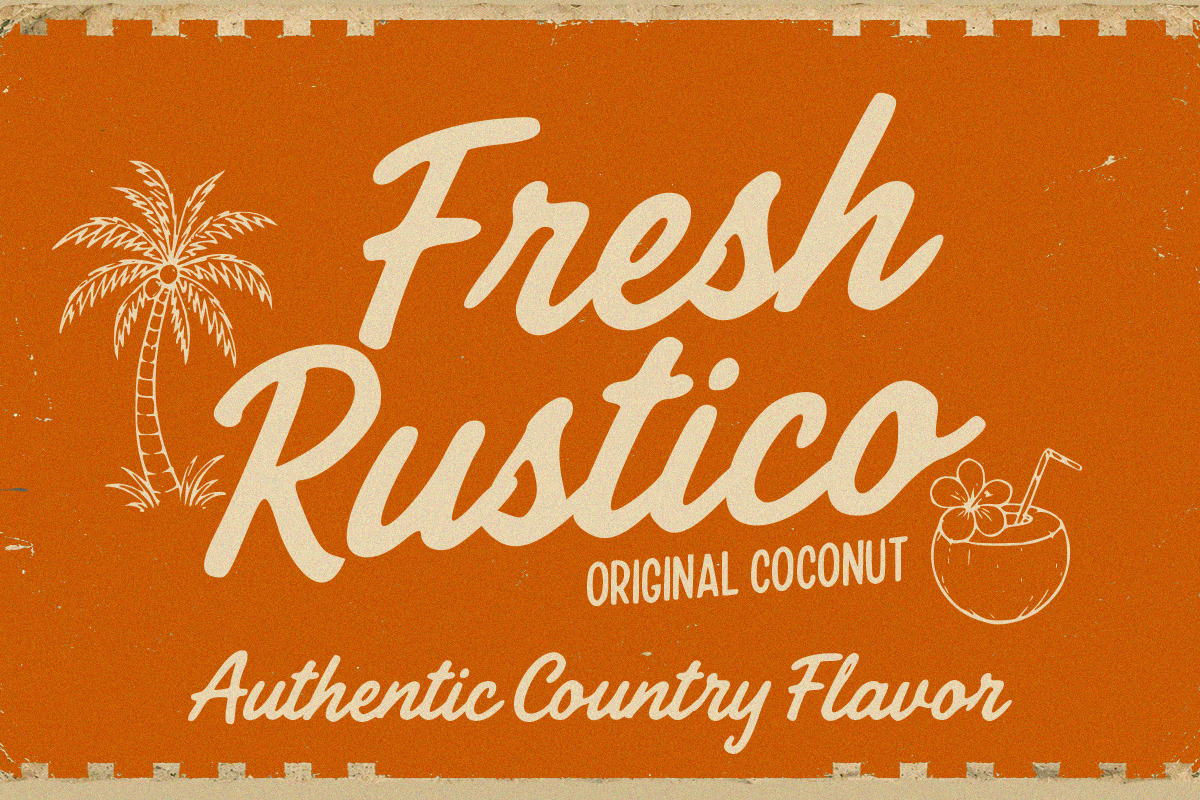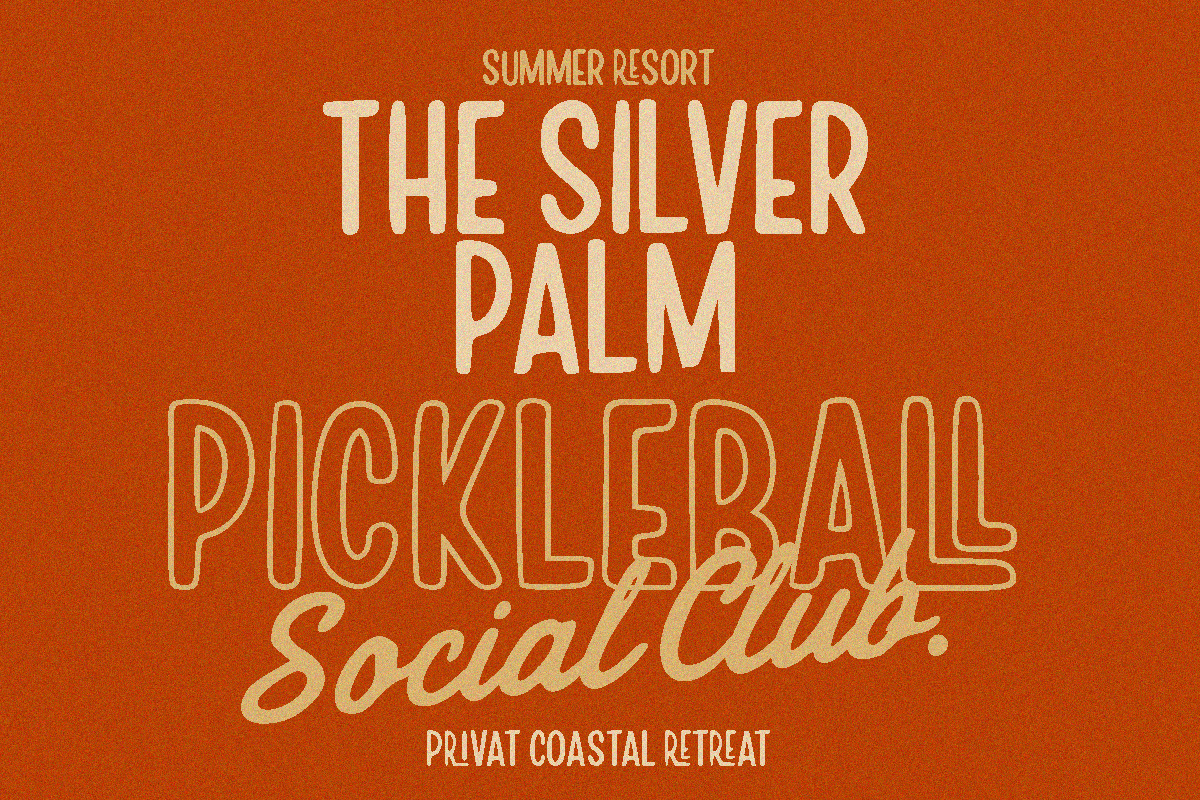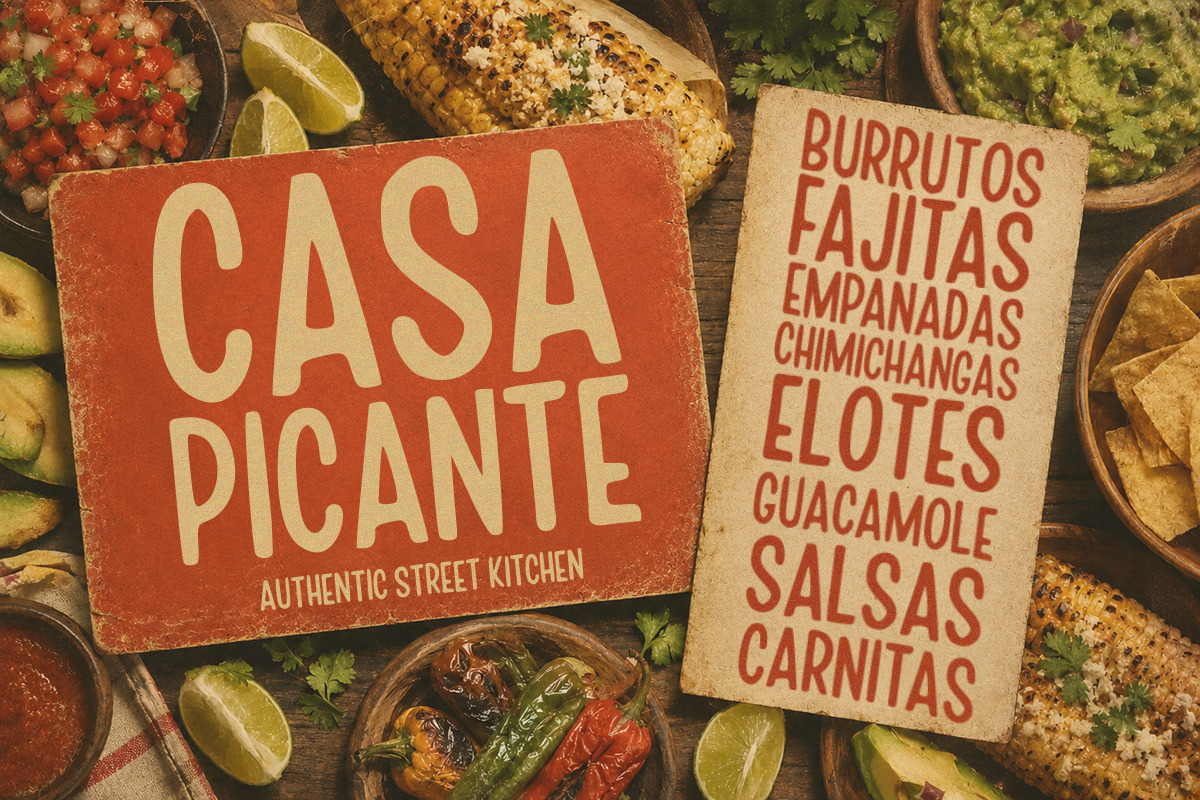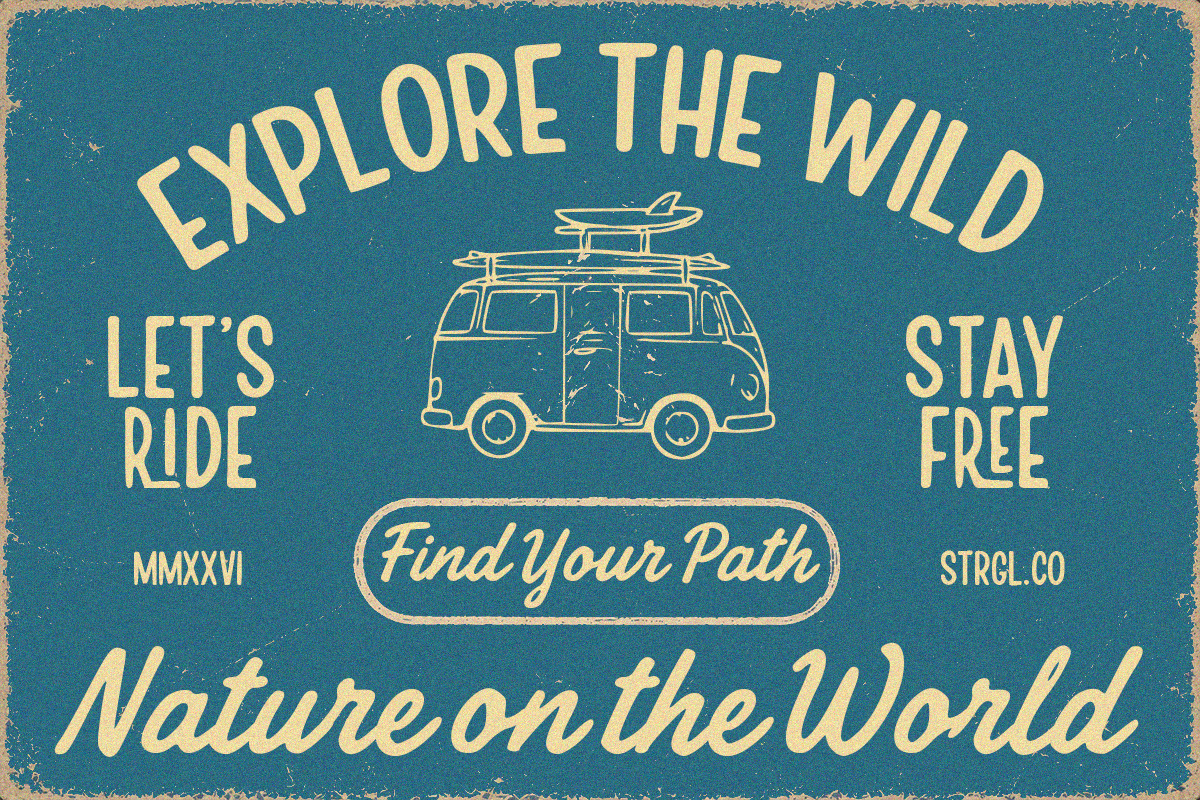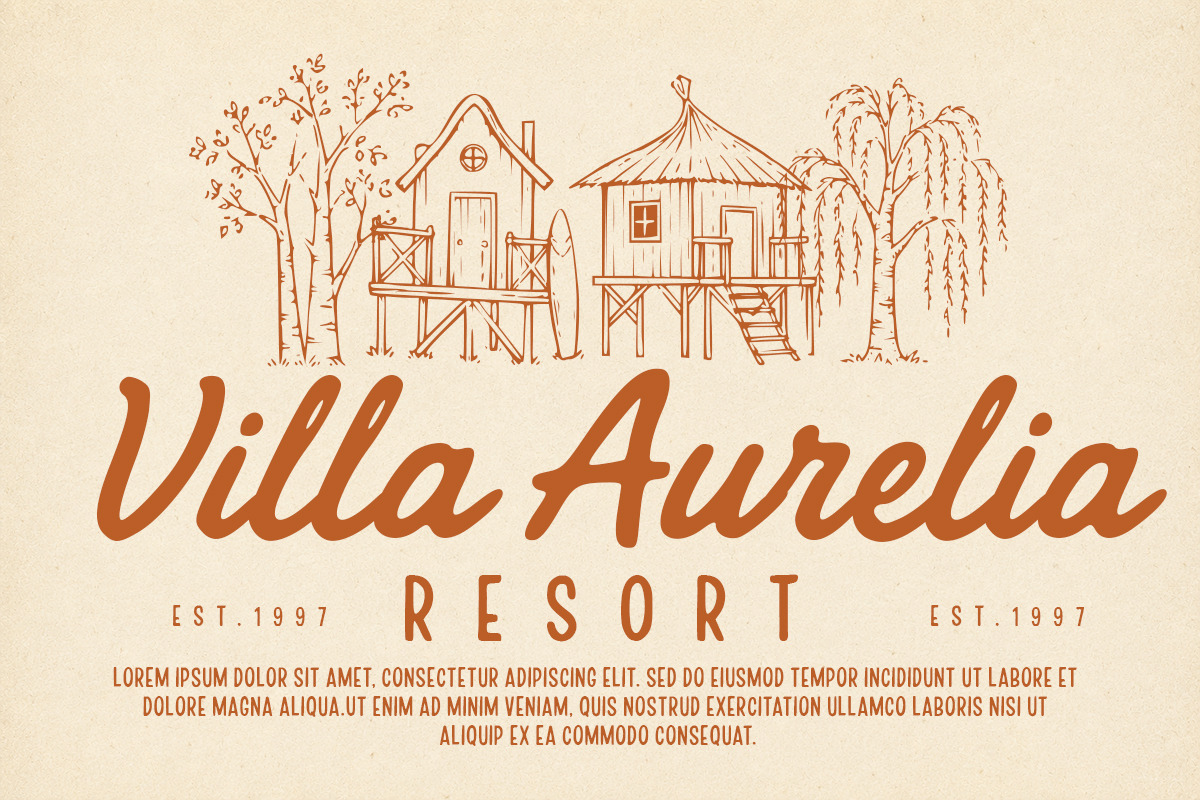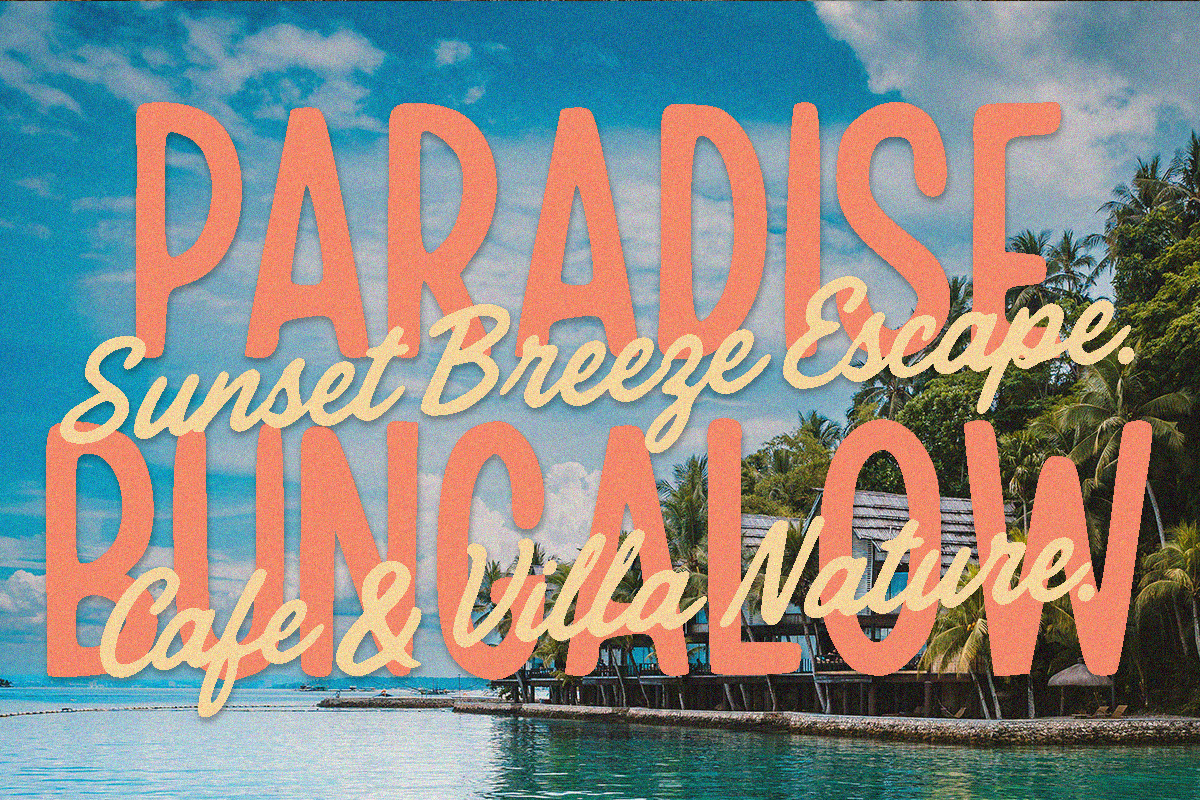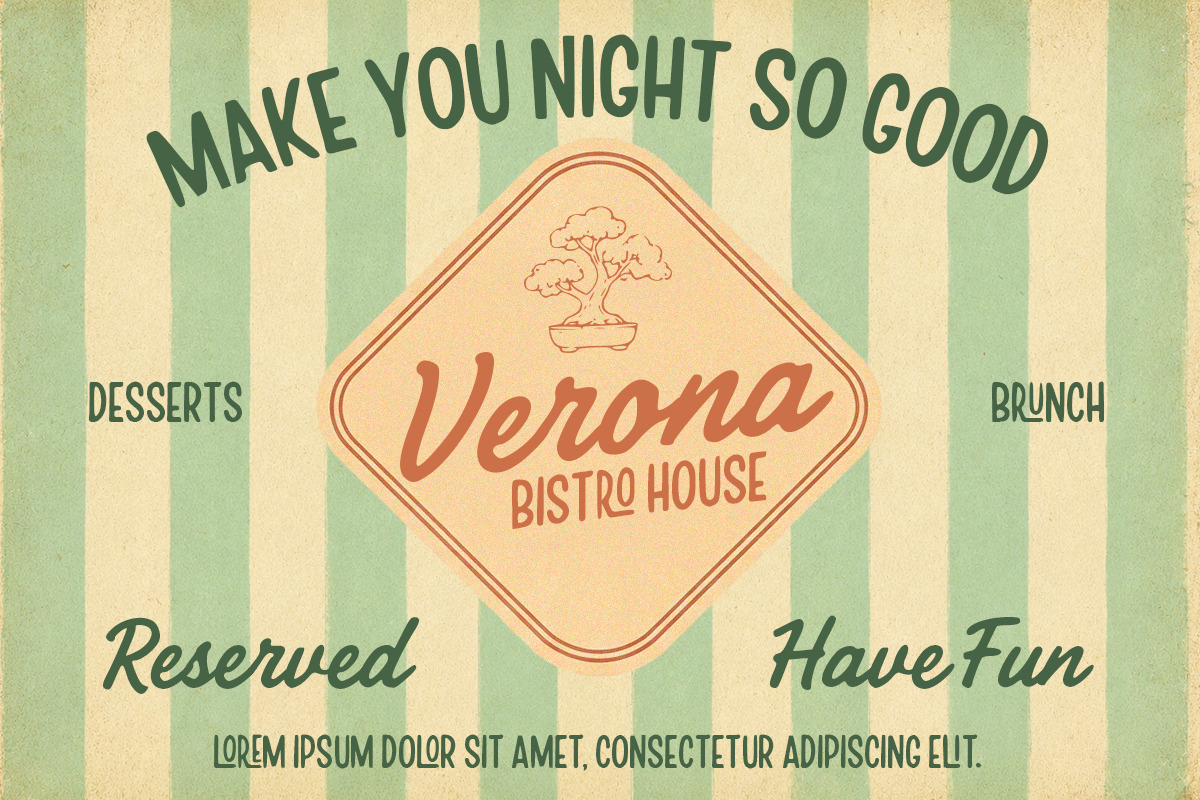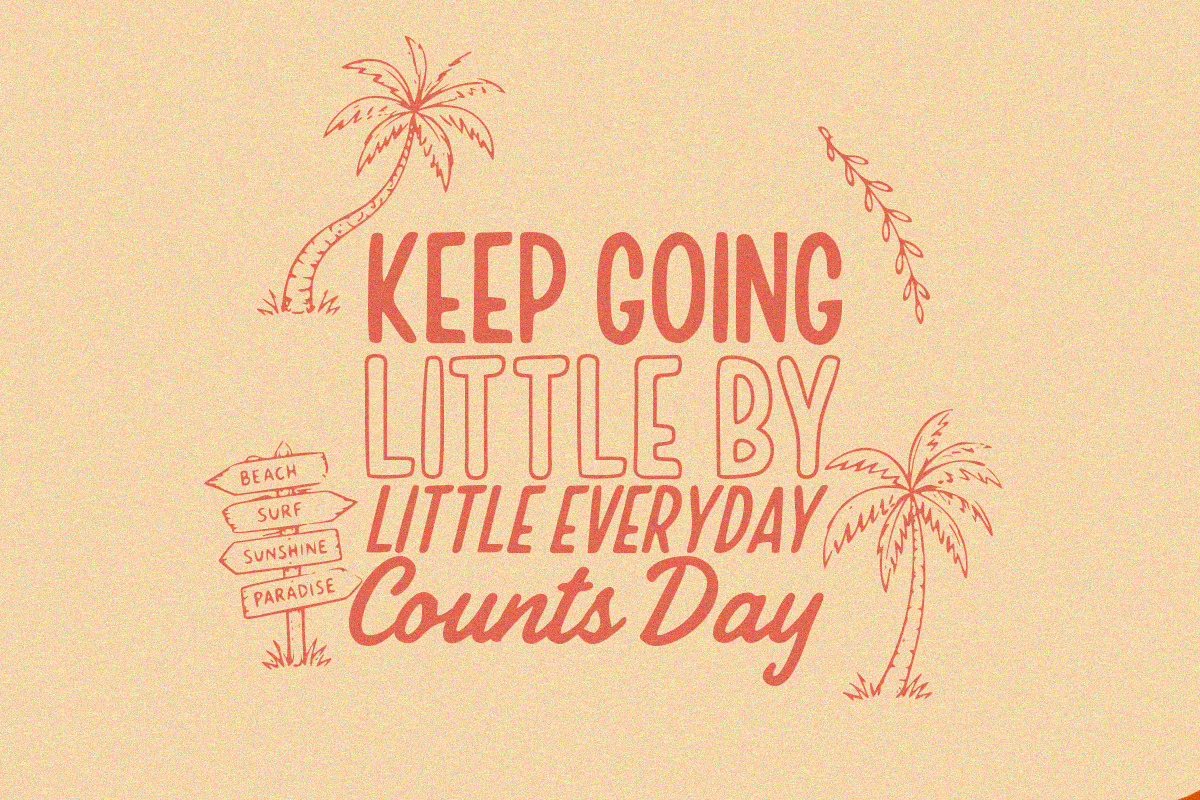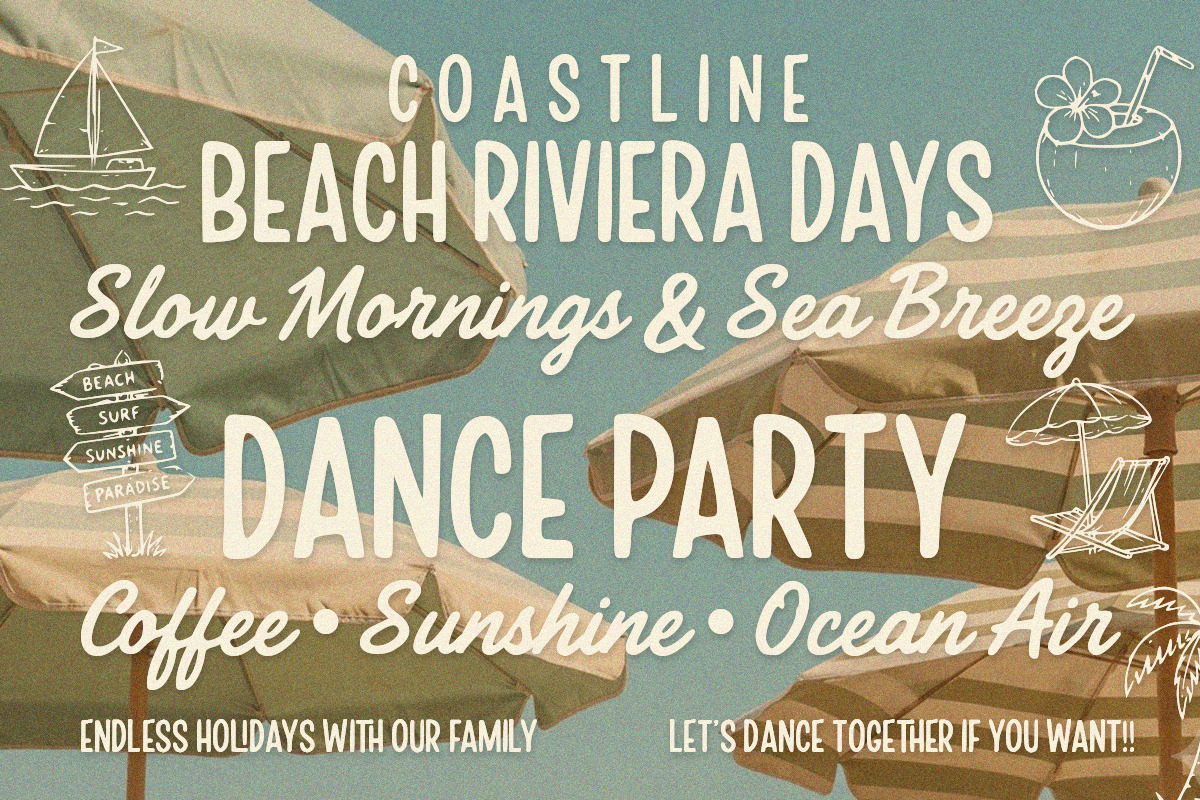
Casa Oliva Maravilla | with Extras
Casa Oliva Maravilla is a playful handwritten display font inspired by the warmth of Mediterranean summers, coastal vacations, and timeless vintage travel posters. Its smooth brush-style curves, relaxed letterforms, and cheerful personality bring a sense of sunshine, nostalgia, and effortless elegance to every design.
Designed with a versatile collection of extras, this typeface is perfect for branding, logos, packaging, café menus, beach clubs, travel promotions, apparel, social media graphics, greeting cards, posters, and other creative projects that call for a warm, handcrafted touch. Whether you're creating a retro-inspired identity or adding a relaxed coastal vibe to modern designs, Casa Oliva Maravilla delivers charm, authenticity, and exceptional readability.
Bring the spirit of endless summer to your typography with a font that feels both nostalgic and refreshingly contemporary.